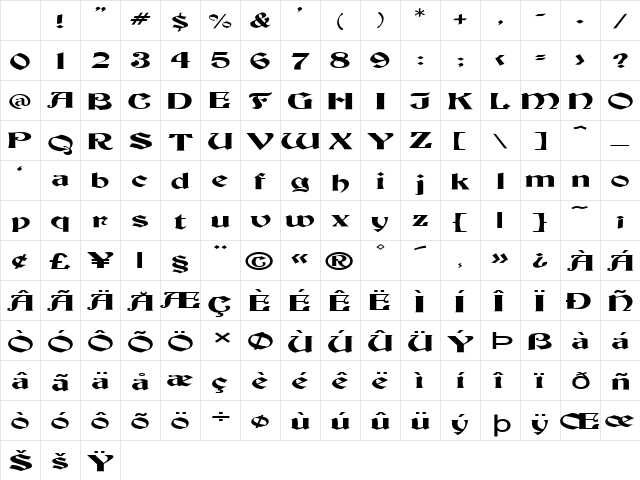
FZ JAZZY 19 EX Medium Free Font
FZ JAZZY 19 EX Medium
Complete FZ JAZZY 19 EX Medium glyph index. Displaying only characters natively supported by FZ JAZZY 19 EX Medium font.
Design Context for FZ JAZZY 19 EX
FZ JAZZY 19 EX is a composed and adaptable typeface that performs quietly and consistently across a wide range of design contexts.